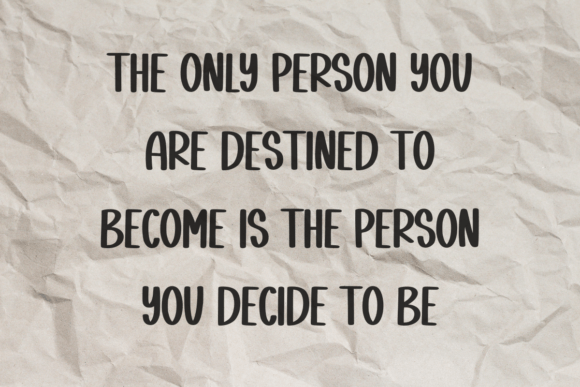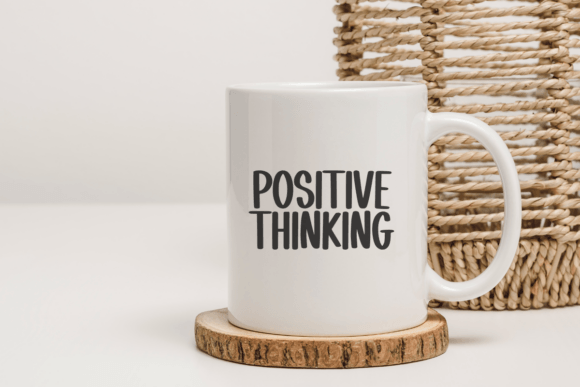
Charming Designer Font
Charming Designer is a fun and playful sans serif font with a bold, hand-drawn style. It is designed to capture attention with its thick, rounded strokes and casual, approachable appearance, making it ideal for informal designs and branding. This font works well for various creative projects like posters, t-shirts, mugs, and tote bags that aim to convey a positive and friendly vibe. The high readability and unique style make it versatile for both digital and print designs, suitable for inspirational quotes, social media graphics, and kid-friendly designs.